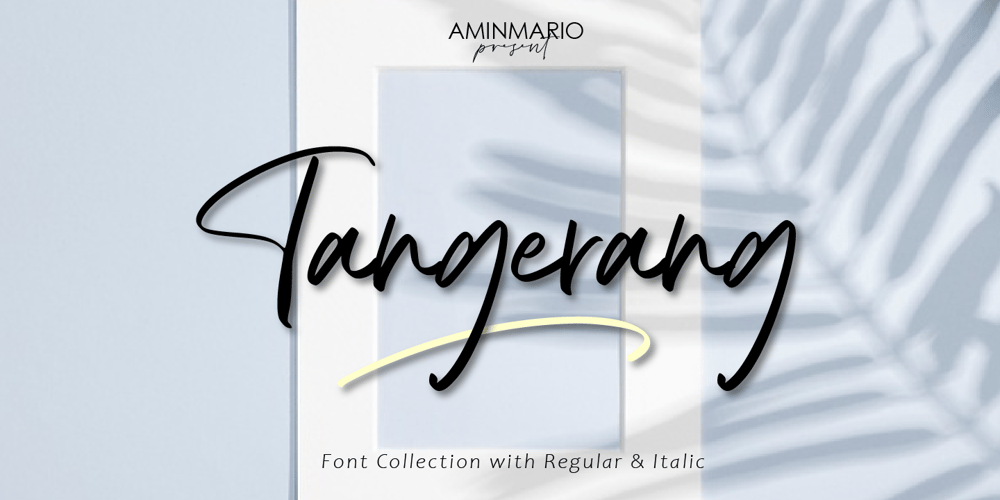
Tangerang Font Family was designed by Amin Maryono and published by Aminmario Studio. Tangerang contains 2 styles and family package options. This font was created to look as close to a natural handwritten script as possible by including alternates lowercase, swash lowercase, ligature and underlines. Built in Opentype features, this script comes to life as if you were writing it yourself.Comes with regular and italic. Also support multilingual.Perfect for any awesome projects that need hand writing taste.This is suitable for branding, quotes, invitations, stationery, wedding design, logos, watermarks on photography, signatures, advertisement, album covers, business cards, clothing, magazines, posters, and more!